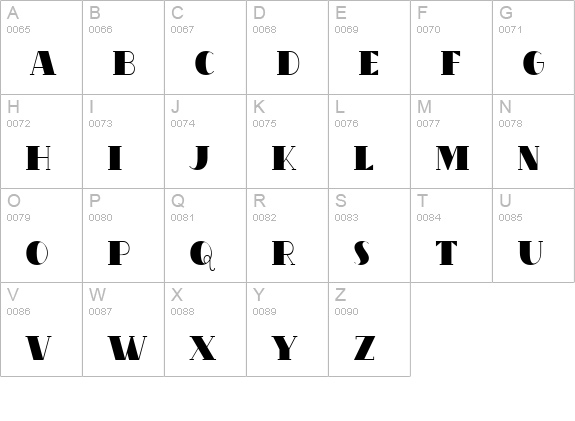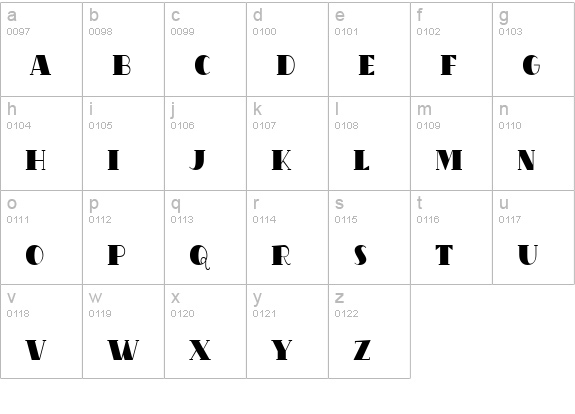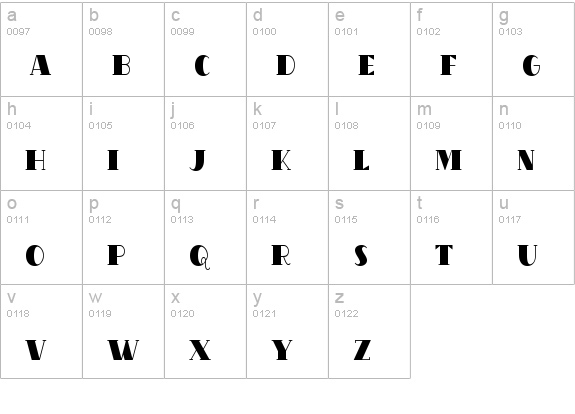
OakParkAve Plain Font Details
OakParkAve Plain font is a timeless and elegant typeface that exudes simplicity and sophistication. Its clean lines and classic design make it perfect for a wide range of projects, from branding to editorial design. The font's versatility allows it to be used in various contexts, adding a touch of refinement to any text. Best of all, OakParkAve Plain font is completely free to download at FontsMarket.com, making it accessible to anyone looking to enhance their design projects with a touch of style. Whether you're a graphic designer, a blogger, or a small business owner, this font is a valuable addition to your font library. Download OakParkAve Plain font today and elevate your designs with its timeless charm and elegance.